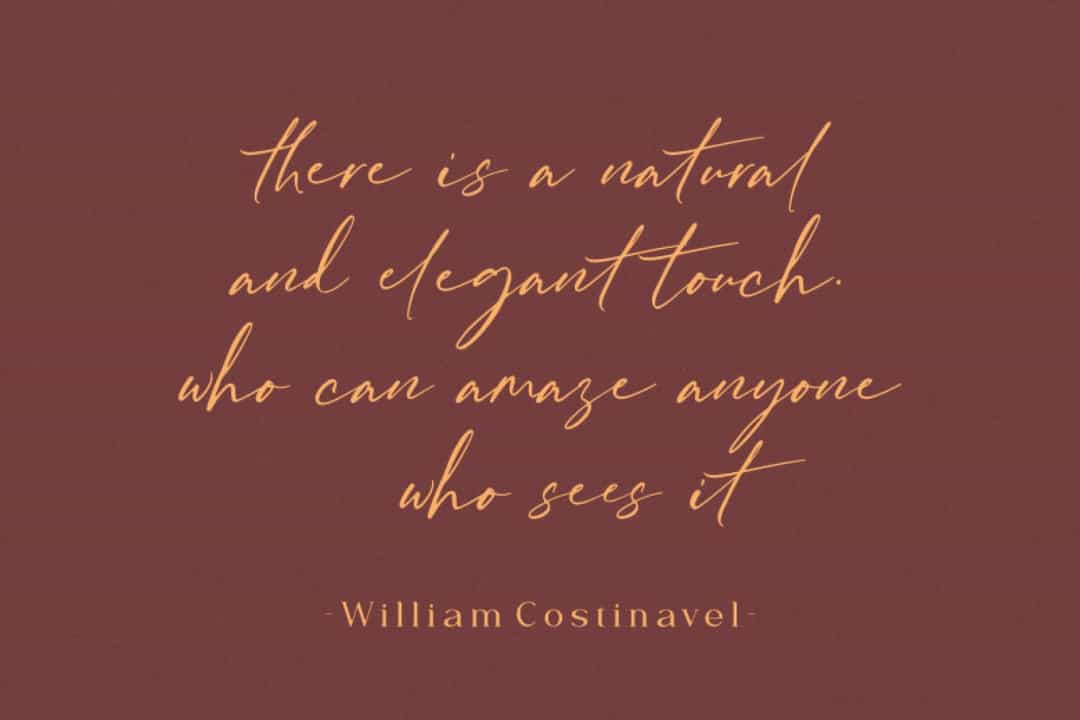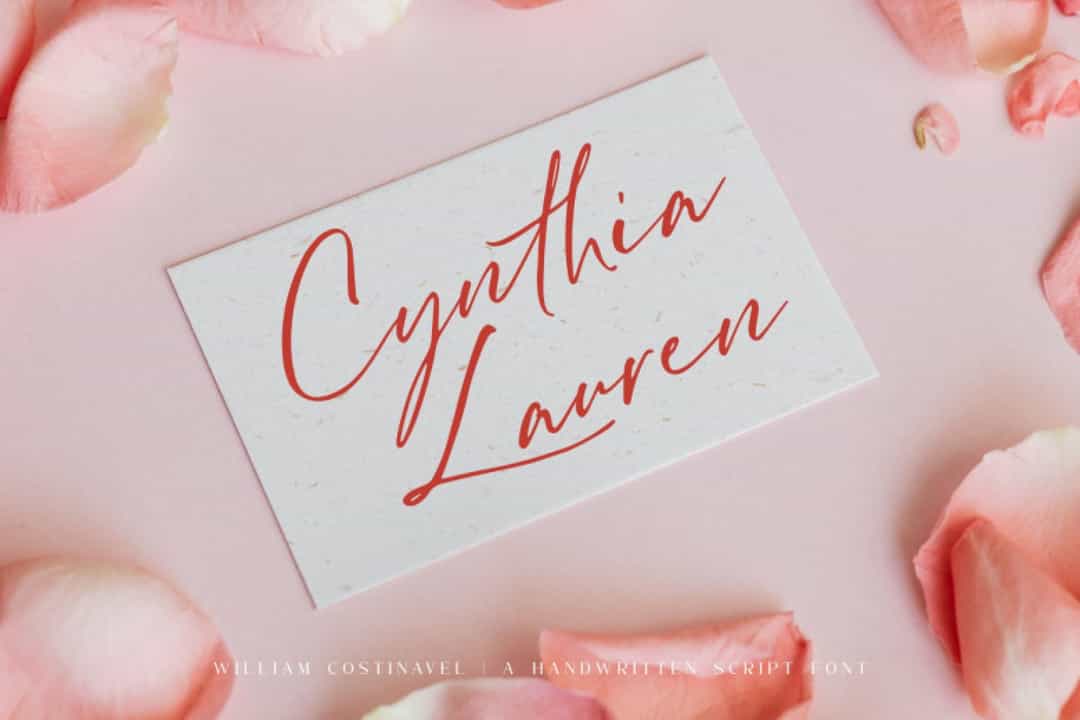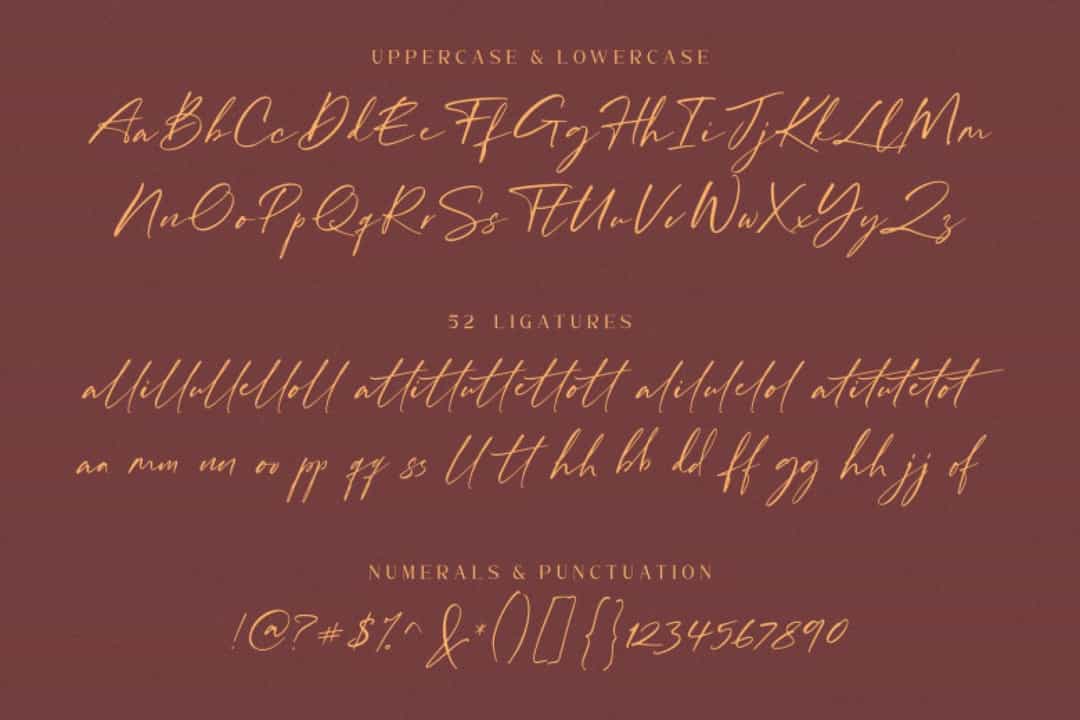
William Costinavel is a modern and stylish handwritten script typeface, with a an easy chic look. William Costinavel with natural handwriting style is ideal for a variety of projects like logos branding, invitations design, stationery, wedding ideas, social media posts advertising, packaging for products posters, designs for products label photographs and more.